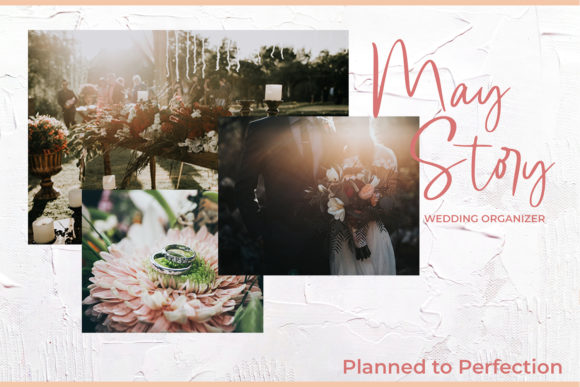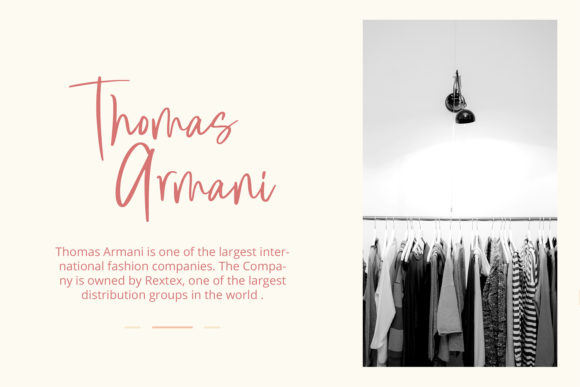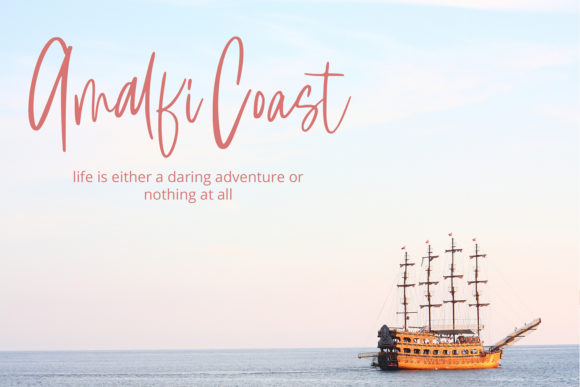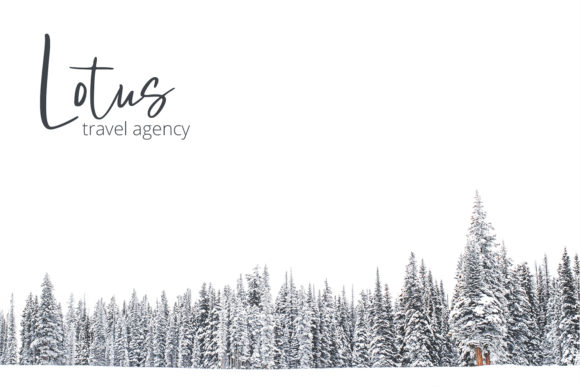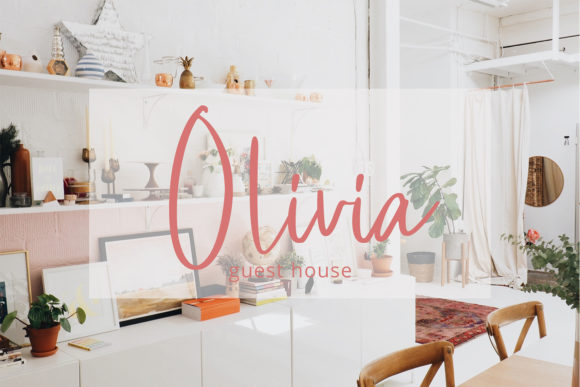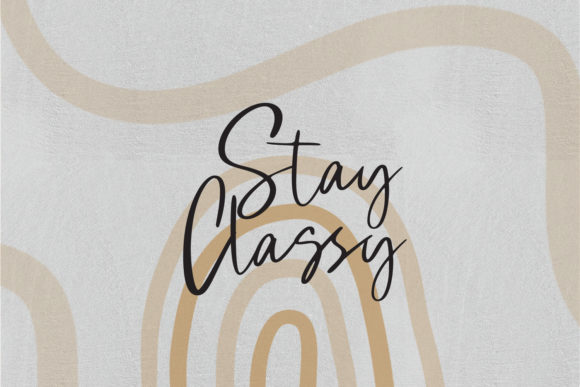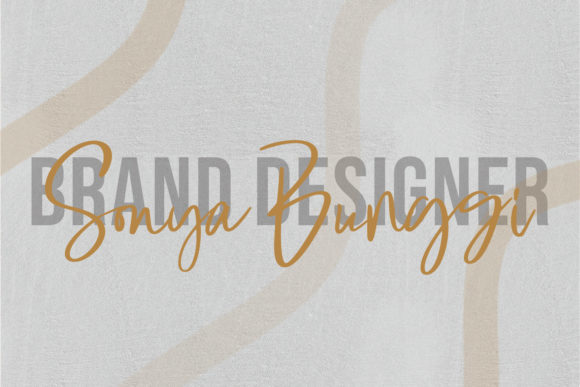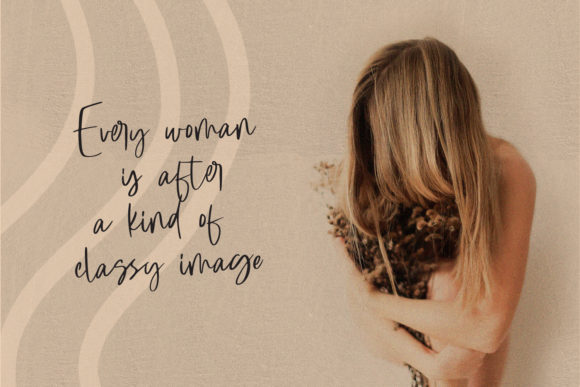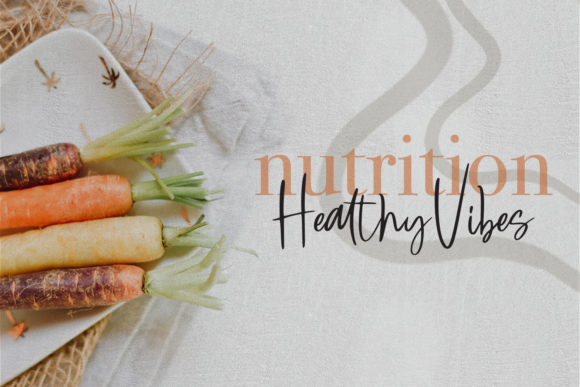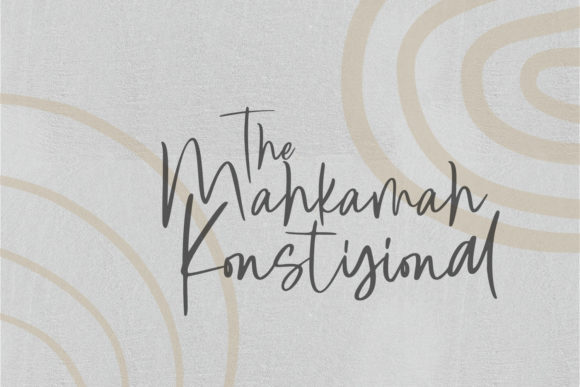
HomeScript FontsBlueberrys Font Script Fonts Blueberrys Font FacebookXPinterestWhatsApp Blueberrys Font Poster 2 Blueberrys Font Poster 3 Blueberrys Font Poster 4 Blueberrys Font Poster 5 Blueberrys Font Poster 6 Blueberrys Font Poster 7 Blueberrys Font Poster 8 Blueberrys Font Poster 9 Blueberrys Font Poster 10 Blueberrys Font Poster 11 Blueberrys Font Poster 12 Blueberrys Font Poster 13 Blueberrys Font Poster 14 About Blueberrys Font Blueberrys is a modern and light handwritten font with a unique feel. Get inspired by its contemporary vibe. DOWNLOAD ON CREATIVE FABRICAThis font is sold and delivered by Creative Fabrica. Font Canyon may earn a commission if you buy through this link. People also explored Play Splat Font Beautiful Font Boldline Font Battgge Font Love Wing Valentine Font Warugaki Gentleman Font Haverlly Switch Font Spac3 Font 382 0 TagsBlueberrys Font Previous articleFomelo FontNext articleBolzano Font LEAVE A REPLY Cancel reply Comment: Please enter your comment! Name:* Please enter your name here Email:* You have entered an incorrect email address! Please enter your email address here Website: Save my name, email, and website in this browser for the next time I comment. Personal Use Free Cute Messy Personal Use Free Read more about this font Cuttering Personal Use Free Read more about this font Velasco Personal Use Free Read more about this font Airmole Personal Use Free Read more about this font BLOG The 10 Best Handwriting Fonts to Add Personality to Your Designs 10 of the Best Handwriting Fonts for Adding Personality to Your Designs There will undoubtedly be no other better choice than handwriting fonts to give... How to Cut Any Font on Cricut: Convert a Font to SVG (Free) Using Fonts in Digital Marketing: Tips to Strengthen Your Brand Identity Fonts That Capture the Spirit of New York City